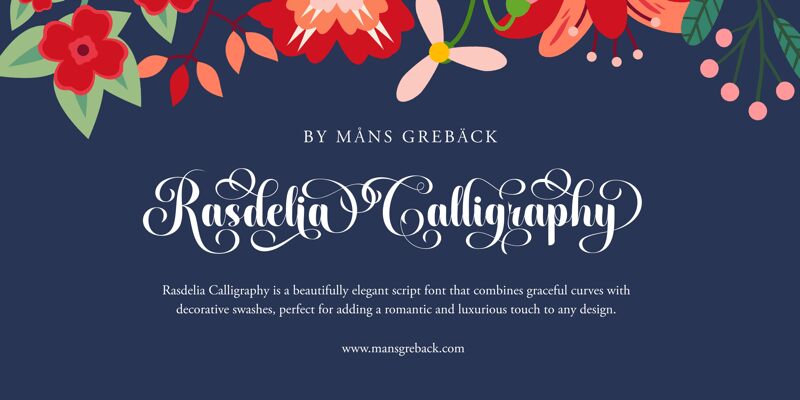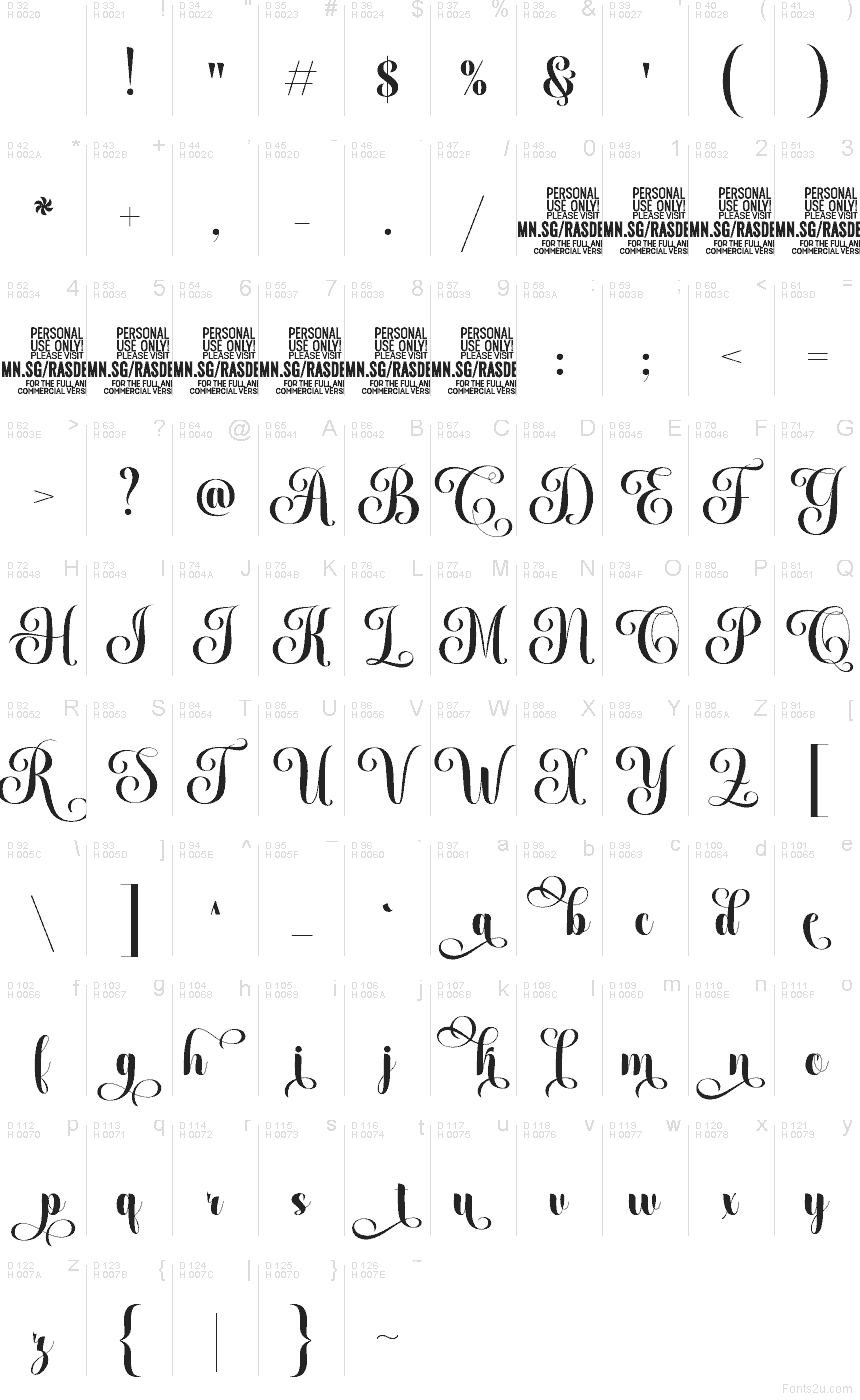
Rasdelia Swashed PERSONAL Regular
Rasdelia Swashed Personal, from Mans Greback AB, is a free swashed calligraphy font with a romantic copperplate spirit. The letters move with long looping flourishes and strong thick-thin contrast, giving the font a flowing, ceremonial feel while the broad entry and exit strokes keep it visibly ornamental.
It suits wedding stationery, perfume and beauty branding, boutique packaging, magazine cover lines, and title cards where a few words can stretch out and breathe. As a free font, it also makes sense for logos, monograms, and opening initials, because those sweeping tails and high curves do much of the visual work on their own.